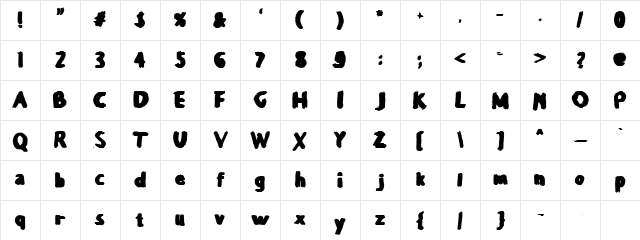
Balballa Regular
Foundry: Vered Gilad Friedman
Designer: Vered Gilad Friedman
Design Context for Balballa
Balballa is a composed and adaptable typeface that performs quietly and consistently across a wide range of design contexts.